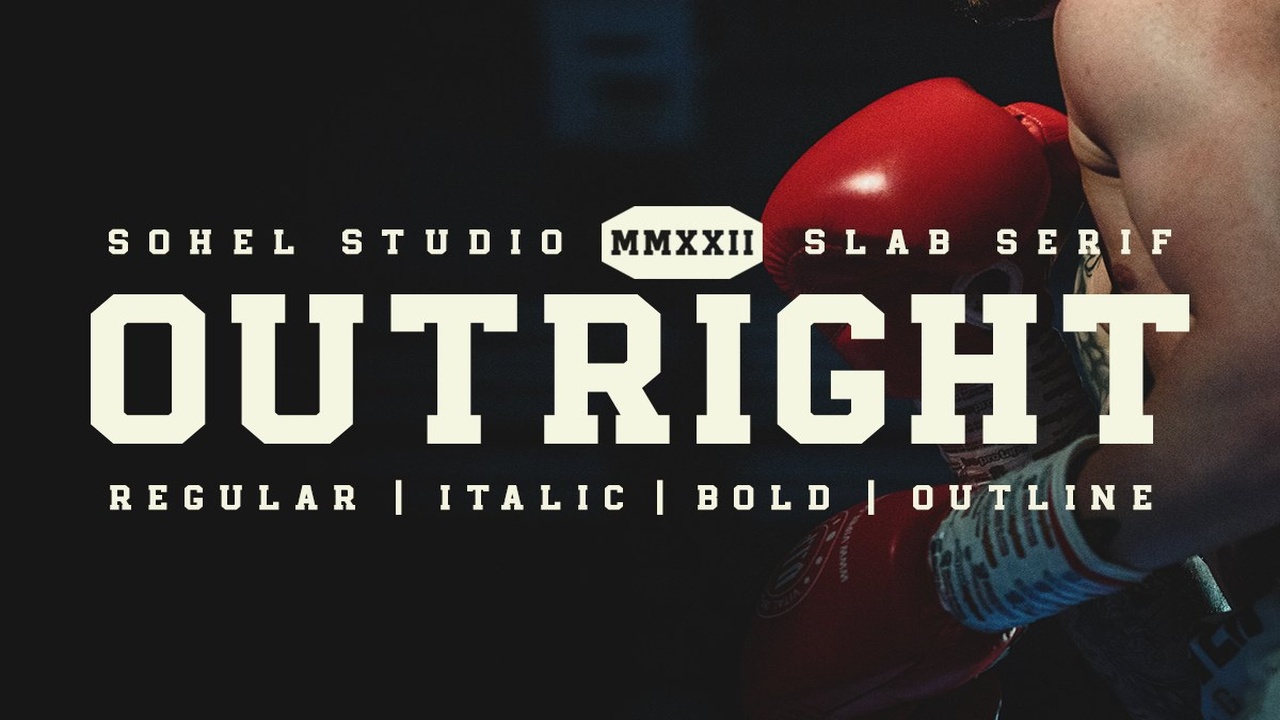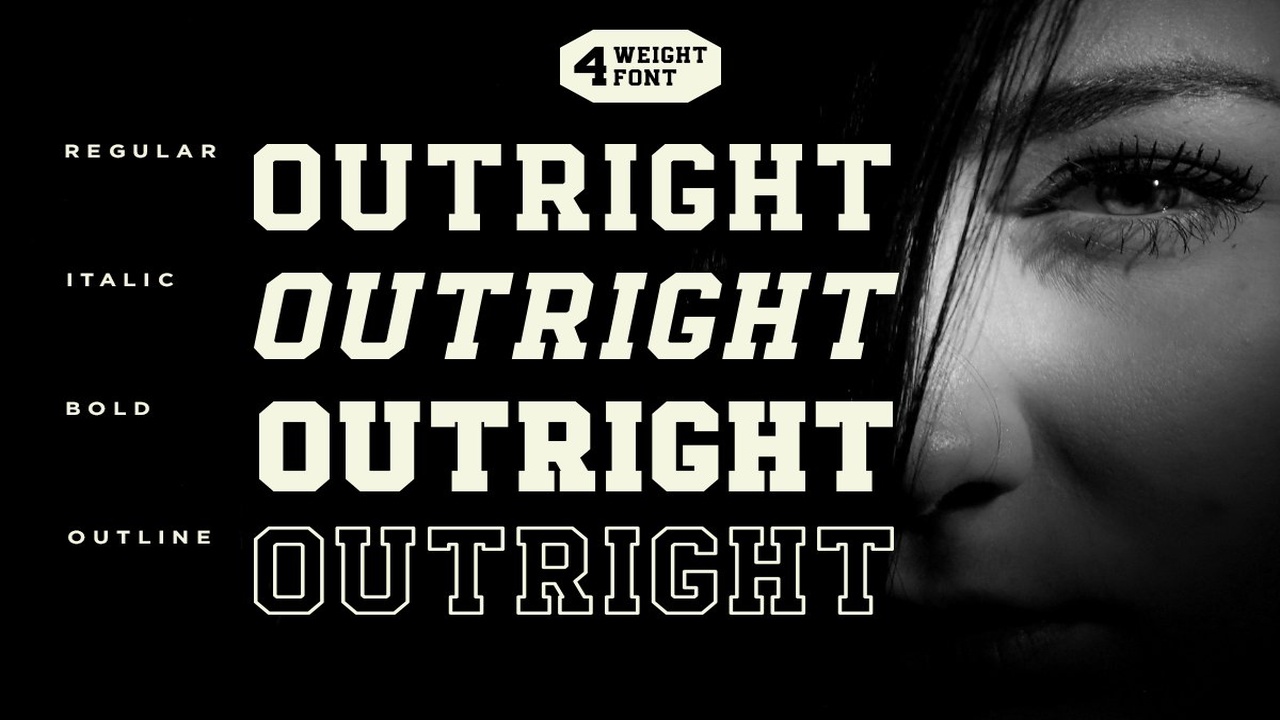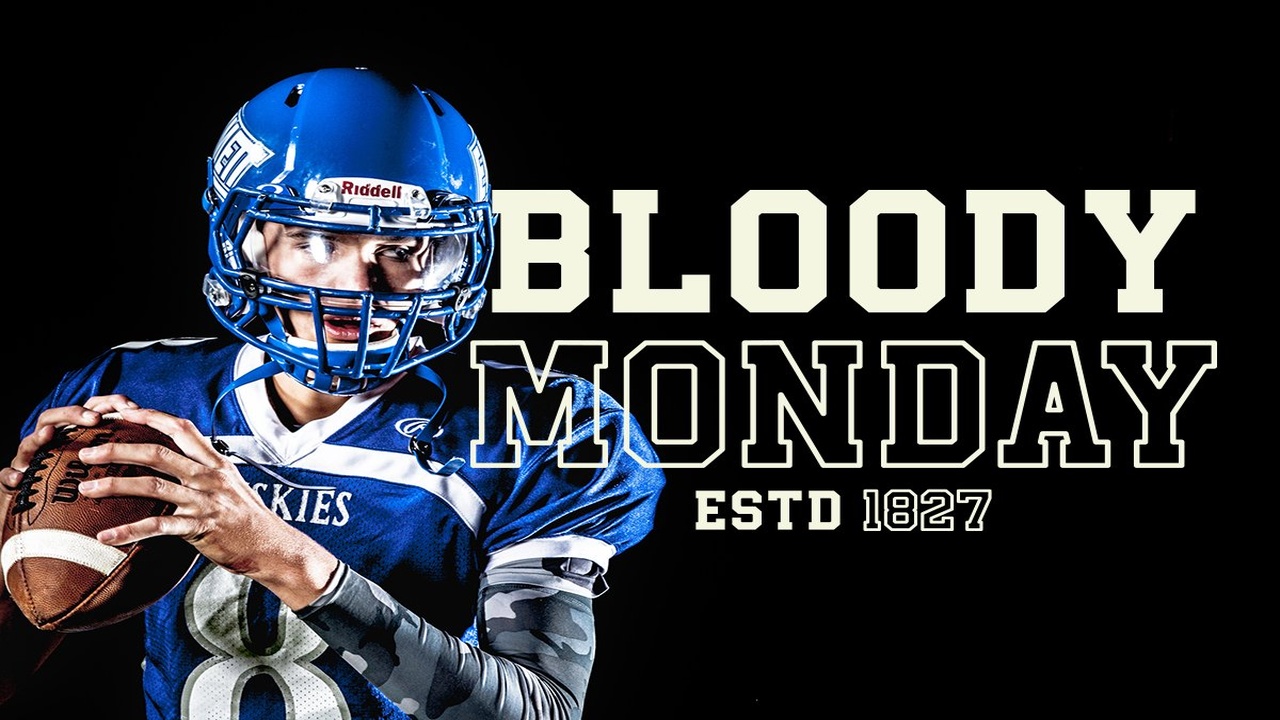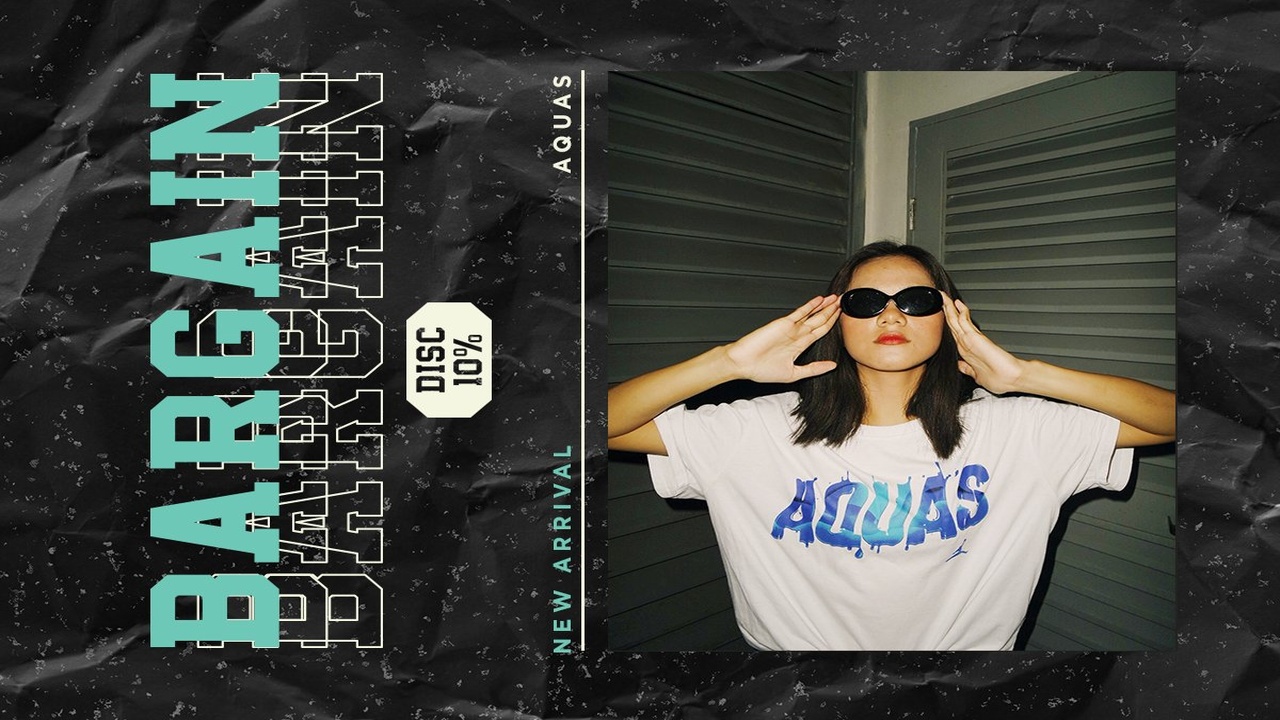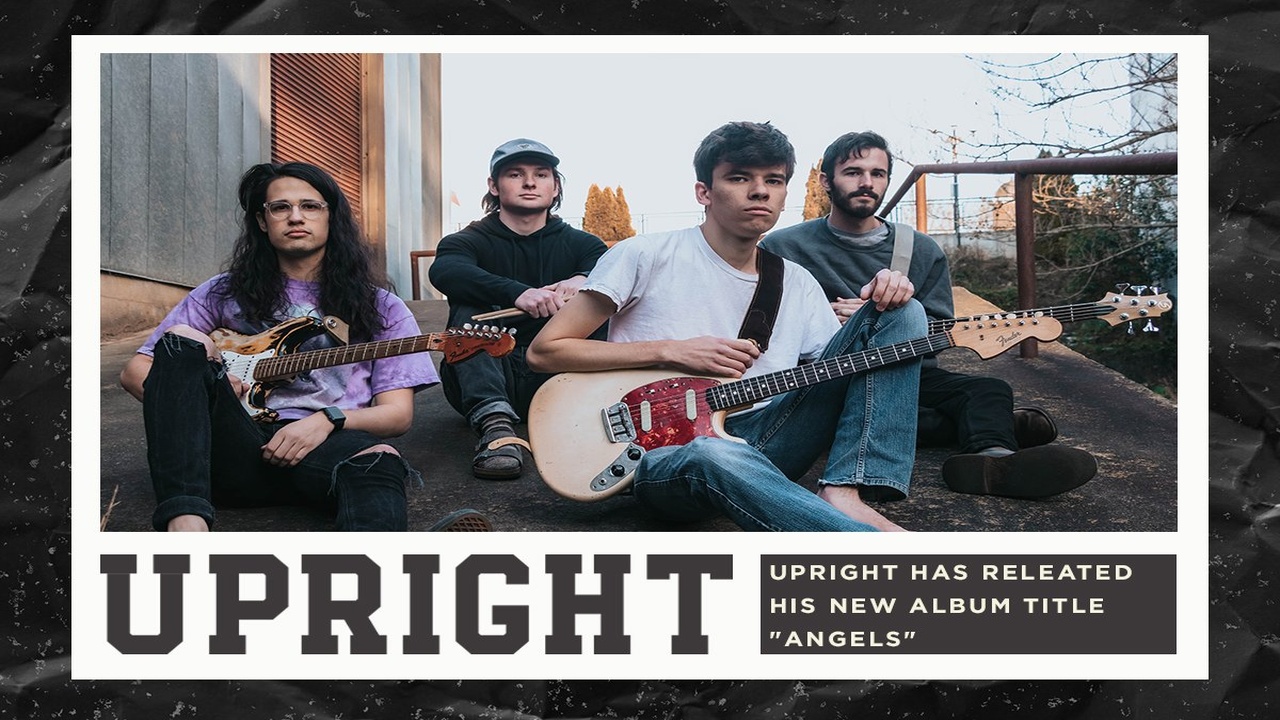
About the Outright Slab Font
Outright slab serif inspired by sporty design, vintage style with a touch of classic style, There are 4 different styles that you can apply in your design projects, This font is built with solid foundations, strong visuals, old-school movement, and a modern minimalist style, Outright is perfect for Jersey , athletic, poster, branding projects, Logo design, Clothing Branding, product packaging, for magazine titles
for something with the theme of sports, album title, etcOutright Features:4 Weights font (Regular,Italic,Bold,Outline)Numerals & PunctuationAccented charactersFormat File: TTF,OTF,WOFFMultilinguale SupportWhile using this product, if you encounter any problem or spot something we may have missed, please don’t hesitate to drop us a message